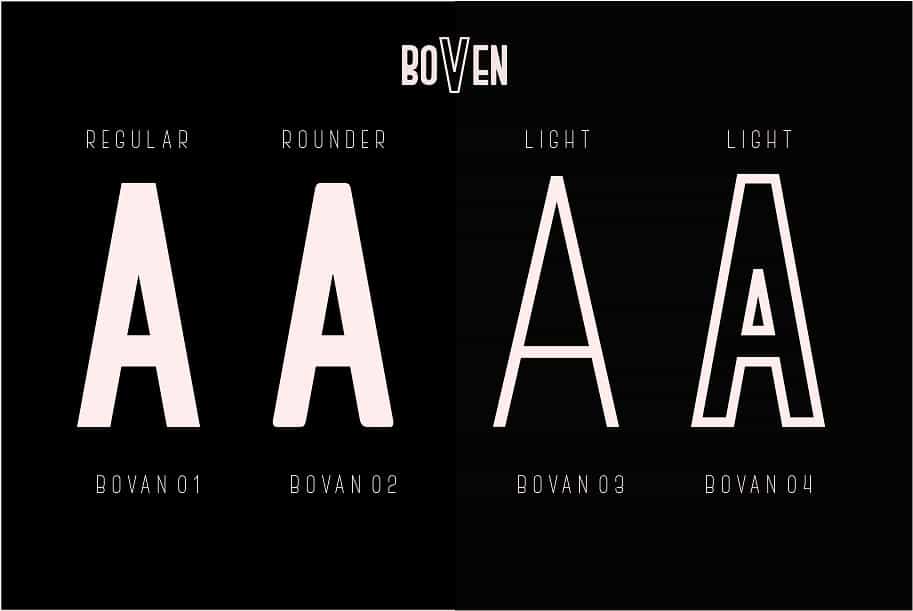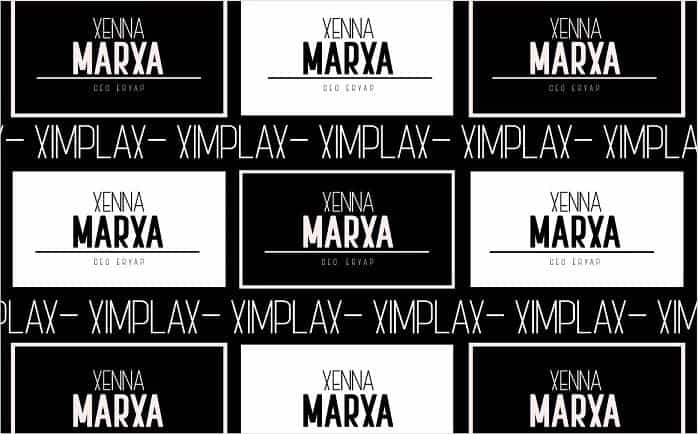
Discover Boven Typeface, part of the Sans Serif 3D Fonts Display Retro collection—a versatile and unique font perfect for adding a personal touch to your projects. Download it for free and enjoy crafting designs with style, from invitations to social media posts. This font is available exclusively for personal use, giving you the freedom to create without limits. Unlock your creativity with Boven Typeface today!
Font BOVEN is a masculine but modern typeface, made by BOVEN himself. It has many fonts that are minimalist and strong to just where it looks very elegant. BOVEN is a masculine and elegant font which goes with most anything anywhere, poster slips, book cover designs to packaging, wraps film, greeting cards, logos and more.